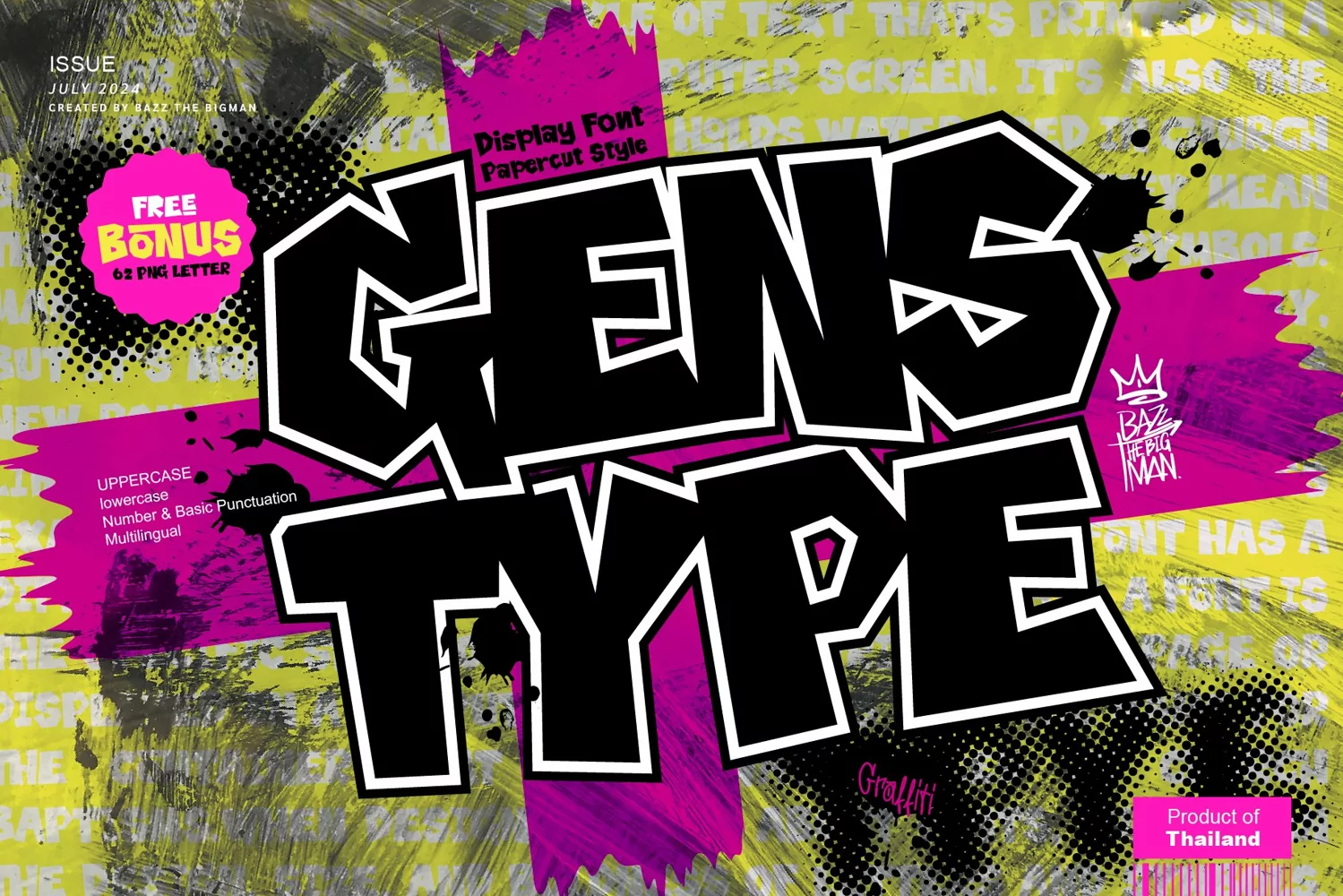
Experience the chic and quirky charm of Gens Type, a display font with invitingly thick letters. Infuse this playful typeface into your preferred designs, and watch as it seamlessly amplifies their creativity, evoking intrigue and delight in every impacted artifact. Witness how the integration of Gens Type in your work generates a remarkable outcome that never ceases to captivate.